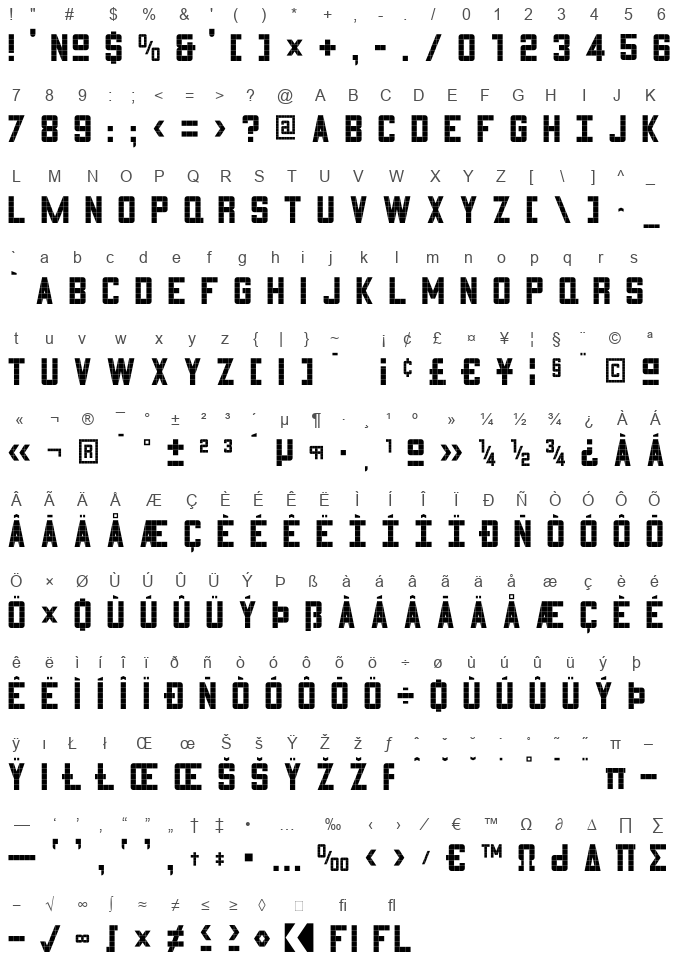
3x5
Based on the squared lettering used for art folders at the former Joseph Eastham High School in Salford, most letters being three squares wide and five squares tall.. pyrs: 3x5: 2026. 3x5. 3x5 (version 4.0) by Keith Bates • © 2002, 2026 www.k-type.com. Please refer to the Copyright section for the font trademark attribution notices.. K-Type. Keith Bates. www.k-type.com